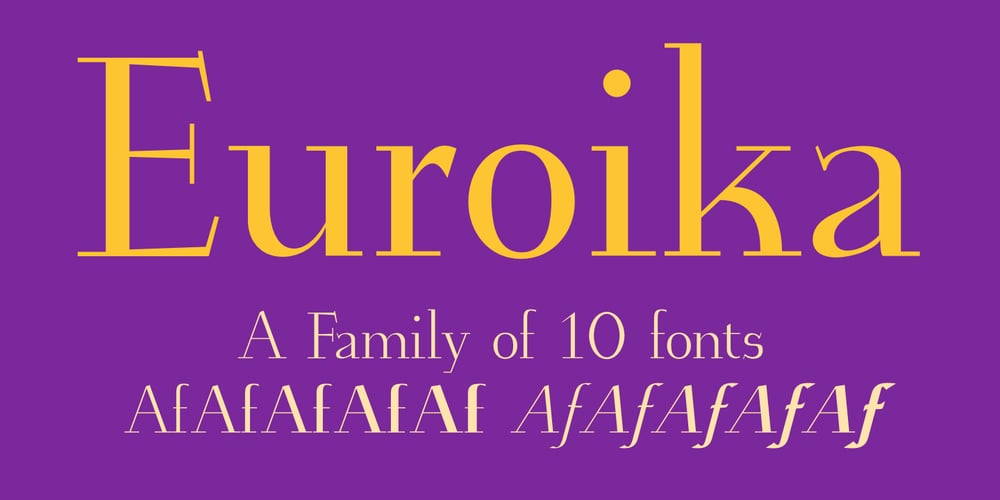
Euroika Font Family was designed by Robert Schenk and published by Ingrimayne Type. Euroika contains 10 styles and family package options. Crisp and clean with a non-traditional italics, Euroika is a decorative, serifed alphabet. The letters have high contrast between the thick and thin strokes and the lower-case letters have a small x-height. The family consists of ten members.